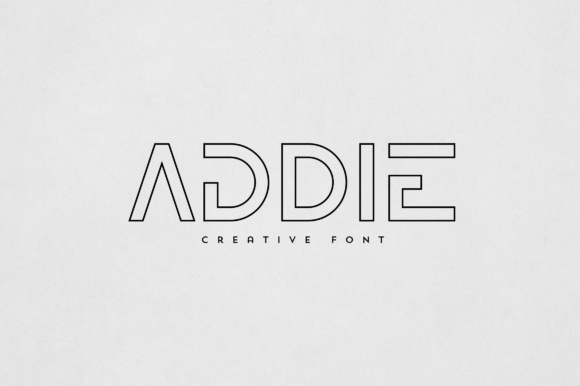
The Designer’s Delight: Unveiling the Elegance of Addie Font
I’ll never forget the moment I stumbled upon Addie Font while working on a branding project for a luxury home goods client. I had spent hours scouring font libraries and marketplaces, but nothing seemed quite right – until I laid eyes on Addie. Its elegant lines and versatile charm instantly captivated me, and I knew I had found the perfect fit. In this article, I’ll share my experience with Addie Font, its features, and how to make the most of it in your designs.
An Honest Review of Addie Font
What I Love About Addie Font
- ✨ Elegant and sophisticated design that’s perfect for luxury brands
- ✅ Highly versatile, suitable for various design projects, from logos to magazine headers
- 💫 Beautifully crafted to add a touch of sophistication to any text
- 🎨 Works well with both light and dark backgrounds
While Addie Font is an excellent choice for many design projects, there are a few minor quirks to be aware of:
- ⚠️ Some users may find the font’s elegance and sophistication limiting for very playful or casual designs.
- 🤔 The font’s legibility may be affected when used at very small sizes or in low-resolution images.
- Experiment with OpenType features, such as ligatures and stylistic alternates, to add visual interest to your text.
- Take advantage of OpenType features, such as glyphs and ligatures, to add depth and visual interest to your text.
The Story Behind Addie Font
While the origins of Addie Font are shrouded in mystery, it’s clear that the designer was inspired by the elegance and sophistication of classic typography. With its beautiful lines and versatile charm, Addie Font is a testament to the power of typography to elevate and transform any design project.
Q: What type of projects is Addie Font best suited for?
A: Addie Font is perfect for luxury branding projects, home goods designs, product packaging, magazine headers, and more.
Q: Is Addie Font easy to read?
A: Yes, Addie Font is designed to be highly legible, even at smaller sizes. However, it’s best used at larger sizes to showcase its elegance and sophistication.
Q: Can I use Addie Font with other fonts?
A: Yes, Addie Font pairs well with a variety of fonts, from classic serif fonts to modern sans-serif fonts. Experiment with different combinations to find the perfect pairing for your design project.